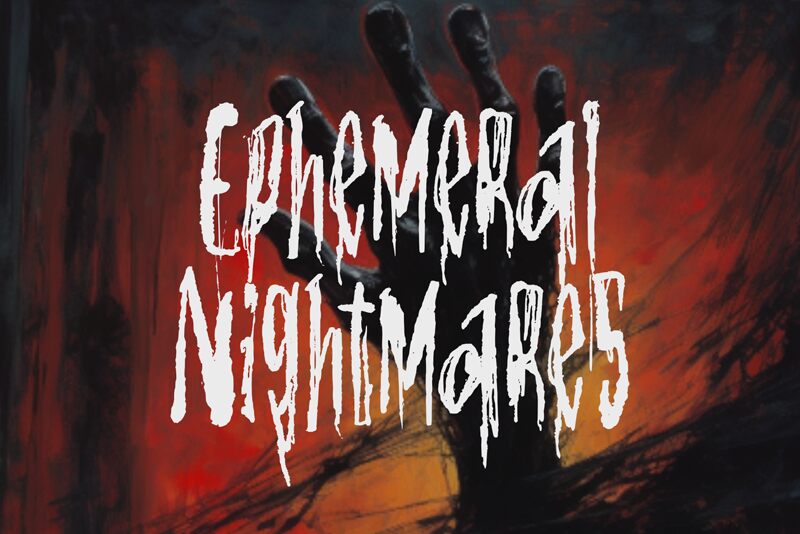
Ephemeral Nightmares font is a scary display typeface by Horror Font. It presents a condensed width which creates an unsettling feeling. Single letters are grudge, distressed, and almost eerie while the whole text appears horror inspired but yet stylish enough to make the most out of it. Conclude any project displaying an unnerving vibe or even upgrade a work that goes into this direction in one way or another.